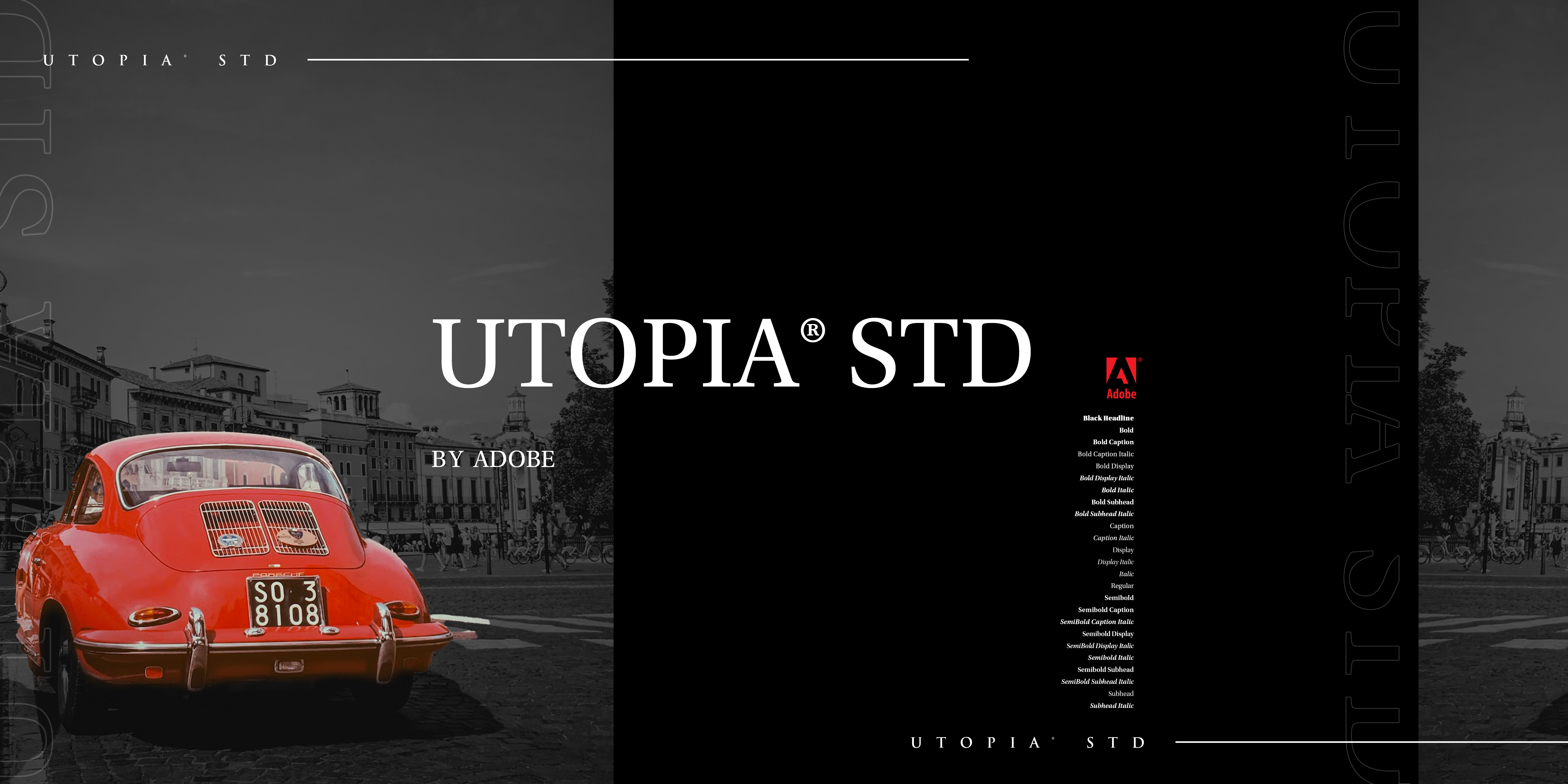
Utopia® Std
Utopia® Std is a serif font family. This typeface has twenty-five styles and was published by Adobe.
Utopia is an Adobe Originals text face designed by Robert Slimbach in 1989. It combines the vertical stress and pronounced stroke contrast of eighteenth-century Transitional types like Baskerville and Walbaum with contemporary innovations in character shapes and stroke details. Utopia has four weights, plus a titling font and an Expert Collection, all of which combine to make a flexible family of types that is excellent for a range of applications from corporate communications and advertising to book and newspaper publishing.